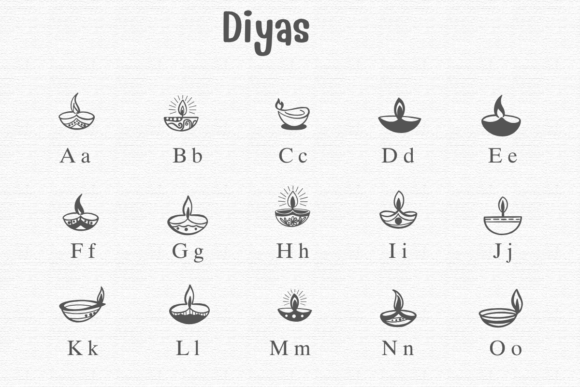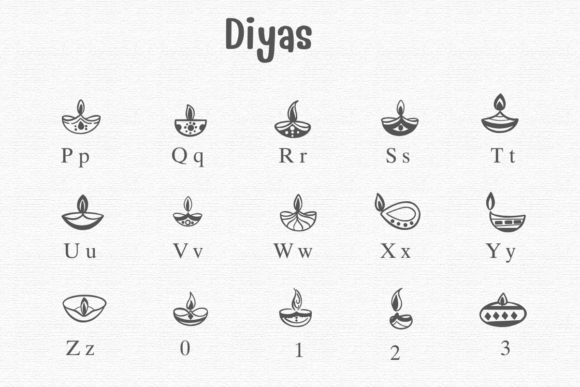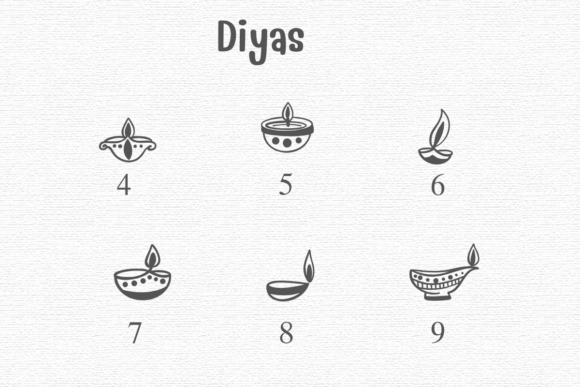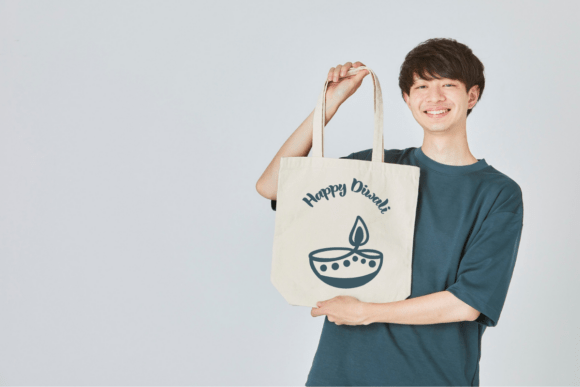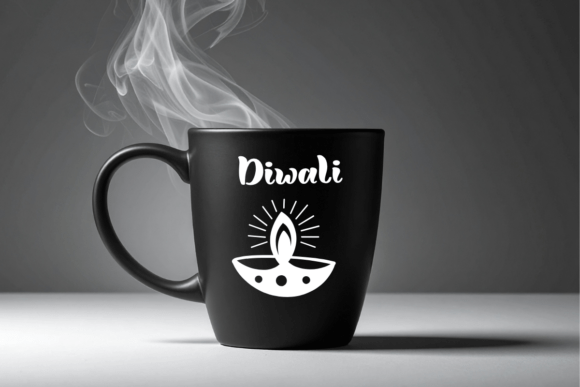
Diyas Font: Illuminate Your Designs with Traditional Oil Lamp Illustrations
Are you looking for a unique and festive font to add a touch of cultural charm to your designs? Look no further than Diyas Font, a beautiful collection of traditional oil lamp illustrations perfect for Diwali and other cultural celebrations. This dingbats font features a stunning array of diya designs, each one showcasing the intricate details and beauty of these traditional lamps.
What is Diyas Font?
Diyas Font is a specially designed dingbats font that features a collection of traditional oil lamp illustrations. Each glyph in the font showcases a unique diya design, ranging from simple and elegant to intricate and ornate. The font is perfect for designers and crafters looking to add a touch of cultural charm to their work, whether it’s for Diwali, Hindu festivals, or other cultural celebrations.
Perfect for Invitations, Greeting Cards, and More
Diyas Font is ideal for a variety of design projects, including invitations, greeting cards, crafts, and educational materials. Imagine being able to add a beautiful, traditional oil lamp illustration to your designs with just a keystroke. The font is perfect for:
- Diwali invitations and greeting cards
- Hindu festival decorations and crafts
- Educational materials and worksheets
Unique and Authentic Designs
Each glyph in Diyas Font is carefully designed to showcase the beauty and intricacy of traditional oil lamps. The font features a range of designs, from simple and elegant to intricate and ornate, ensuring that you’ll find the perfect diya illustration for your project. Whether you’re looking for a traditional or modern design, Diyas Font has got you covered.
Easy to Use and Customize
Bring Light and Cultural Charm to Your Designs
Diyas Font is more than just a font – it’s a way to bring light and cultural charm to your designs. The traditional oil lamp illustrations add a touch of warmth and elegance to any project, making it perfect for cultural celebrations and festivals. With Diyas Font, you can:
- Add a touch of cultural authenticity to your designs
- Create unique and eye-catching graphics and illustrations
- Convey a sense of warmth and hospitality
- Illuminate your designs with a touch of traditional charm
Diyas Font is a beautiful and unique dingbats font that features a stunning collection of traditional oil lamp illustrations. Perfect for Diwali and other cultural celebrations, this font is ideal for designers and crafters looking to add a touch of cultural charm to their work. With its easy-to-use design and customizable features, Diyas Font is the perfect addition to any design project. So why wait? Download Diyas Font today and illuminate your designs with the beauty and elegance of traditional oil lamps!
- Unique and authentic traditional oil lamp illustrations
- Perfect for Diwali and other cultural celebrations
- Easily customizable and adjustable
- Ideal for invitations, greeting cards, crafts, and educational materials
- Adds a touch of cultural charm and warmth to designs